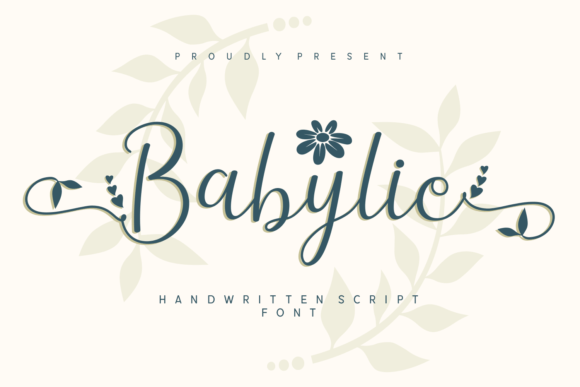
Unleashing Creativity with the Babylie Font
Have you ever stared at a blank page, waiting for inspiration to strike? The blank slate of a new design project can be daunting, but what if you had the perfect tool to spark your creativity? For designers, finding the right font can be the difference between a good design and a great one. That’s where the Babylie Font comes in – a stylish handwritten font with a modern look that’s perfect for creating authentic and elegant typography designs.
The Babylie Font is more than just a pretty face; it’s a valuable asset for any designer looking to add a touch of sophistication to their work. With its PUA encoded glyphs and swashes, you can easily access all the unique features of this beautiful typeface. Whether you’re designing invitations, logos, or product labels, the Babylie Font is the perfect choice for adding a personal touch to your designs.
Babylie Font Key Features
- Font Family: Babylie, Babylie Bold, Babylie Italic, Babylie Bold Italic
- Unique Characteristics: Distinctive, cursive-like script with a touch of elegance and sophistication, suitable for creative and formal purposes
Babylie Font Review
I recently had the chance to work with the Babylie Font, and overall, I have mixed feelings about it. While it has its strengths, it also has some notable limitations. Let’s dive into what works well and what doesn’t.
- Unique aesthetic: Babylie Font has a distinct, whimsical feel that can add a touch of playfulness to designs.
- Wide range of weights: The font offers a variety of weights, from light to bold, making it versatile for different design applications.
- Legibility: Despite its quirky appearance, Babylie Font is surprisingly easy to read, especially in larger font sizes.
- Overuse of flourishes: While the flourishes can add to the font’s charm, they can also become overwhelming if overused.
- Limited compatibility: Babylie Font may not be optimized for certain operating systems or design software, which can lead to compatibility issues.
- Lack of consistency: The font’s design can feel a bit inconsistent, with some characters looking more refined than others.
While Babylie Font has its strengths, its limitations may make it more suitable for specific design projects or audiences. If you’re looking for a unique, playful font, Babylie might be worth considering. However, if you prioritize consistency and compatibility, you may want to explore other options.
Getting the Most Out of Babylie Font
For optimal results, use the Babylie font in conjunction with bold or italic styles to add emphasis to your text.
Experiment with different font sizes and line heights to achieve a visually appealing layout.
Use the Babylie font in combination with other fonts to create a unique and eye-catching design.
The Babylie font is ideal for:
Creating a vintage or retro aesthetic in your designs.
Adding a touch of elegance and sophistication to your text.
Designing invitations, posters, and other promotional
Alternatives to Babylie Font
Great Vibes is a beautiful script font that is perfect for creating a relaxed and casual atmosphere. It is ideal for use in logo designs, wedding invitations, and other creative projects where a touch of elegance is required. Great Vibes Font is more elegant and refined compared to Babylie Font, which is more playful and whimsical.
Carolyna Pro is a modern script font that is suitable for a wide range of applications, including branding, packaging, and editorial design. It is characterized by its fluid connections and elegant lines, making it a great alternative to Babylie Font for designers who want to create a sophisticated and polished look.
Alex Brush is a handwritten script font that is perfect for creating a personal and intimate atmosphere. It is ideal for use in invitations, stationery, and other design projects where a touch of warmth and personality is required. Alex Brush Font is more personal and emotive compared to Babylie Font, which is more playful and versatile.